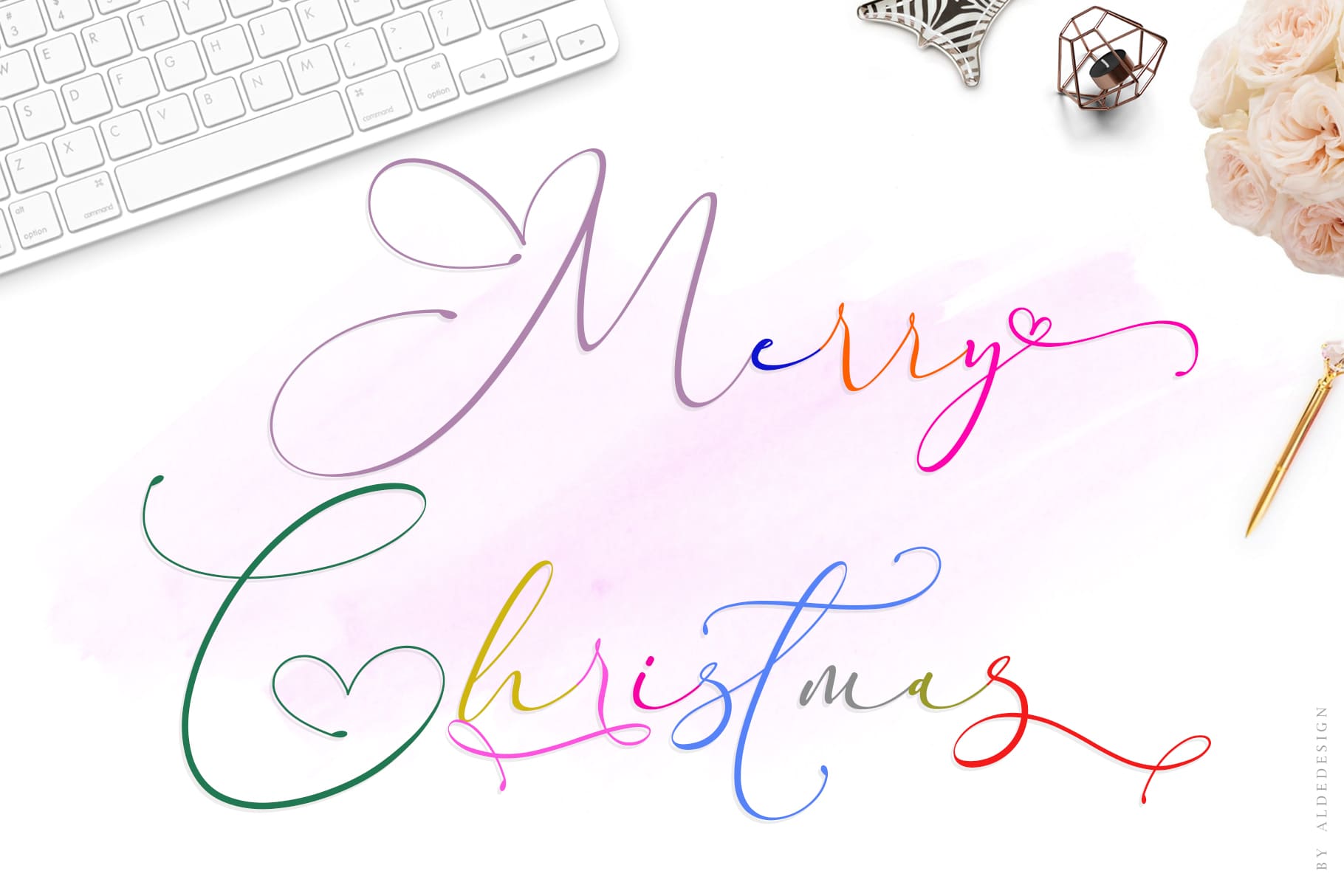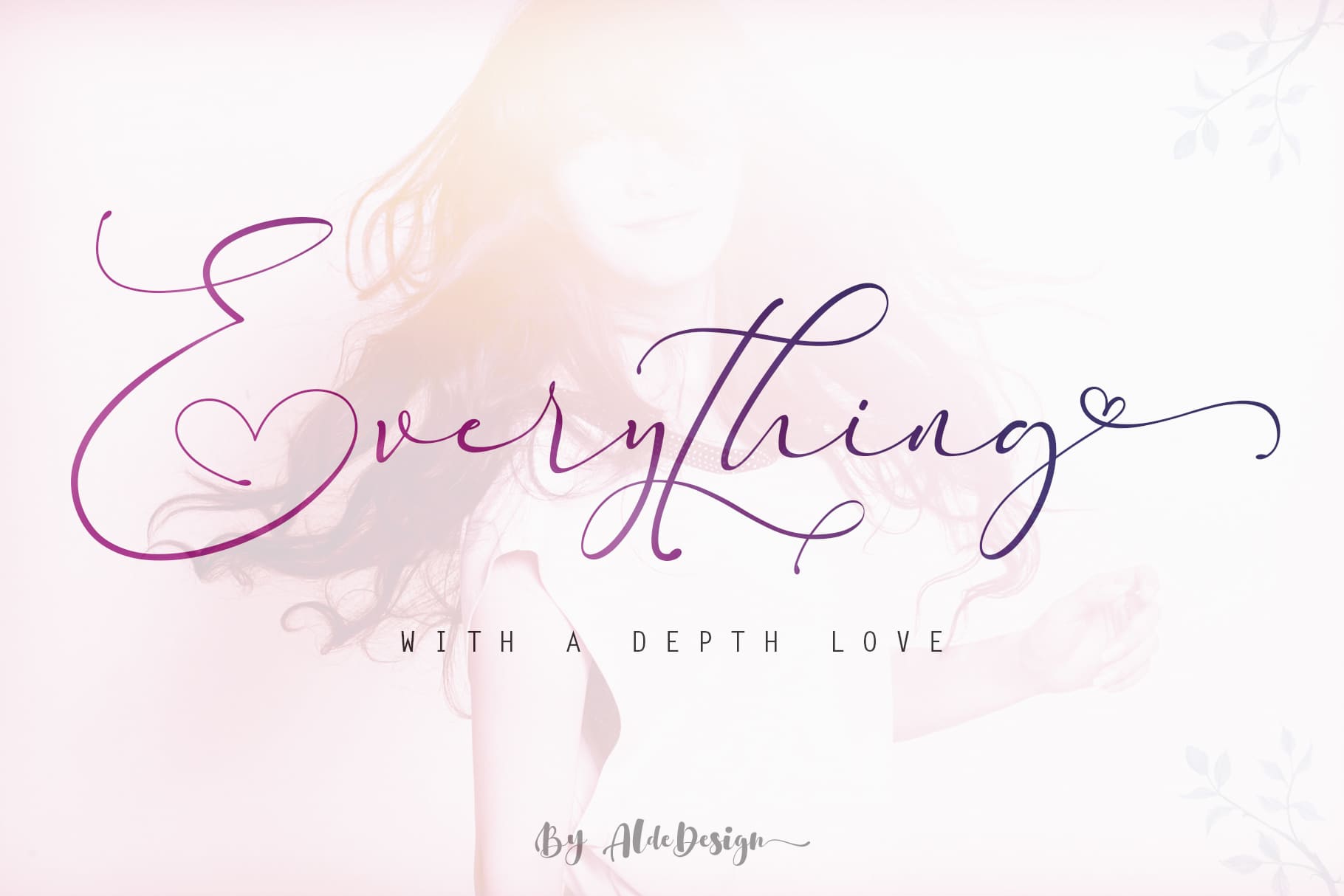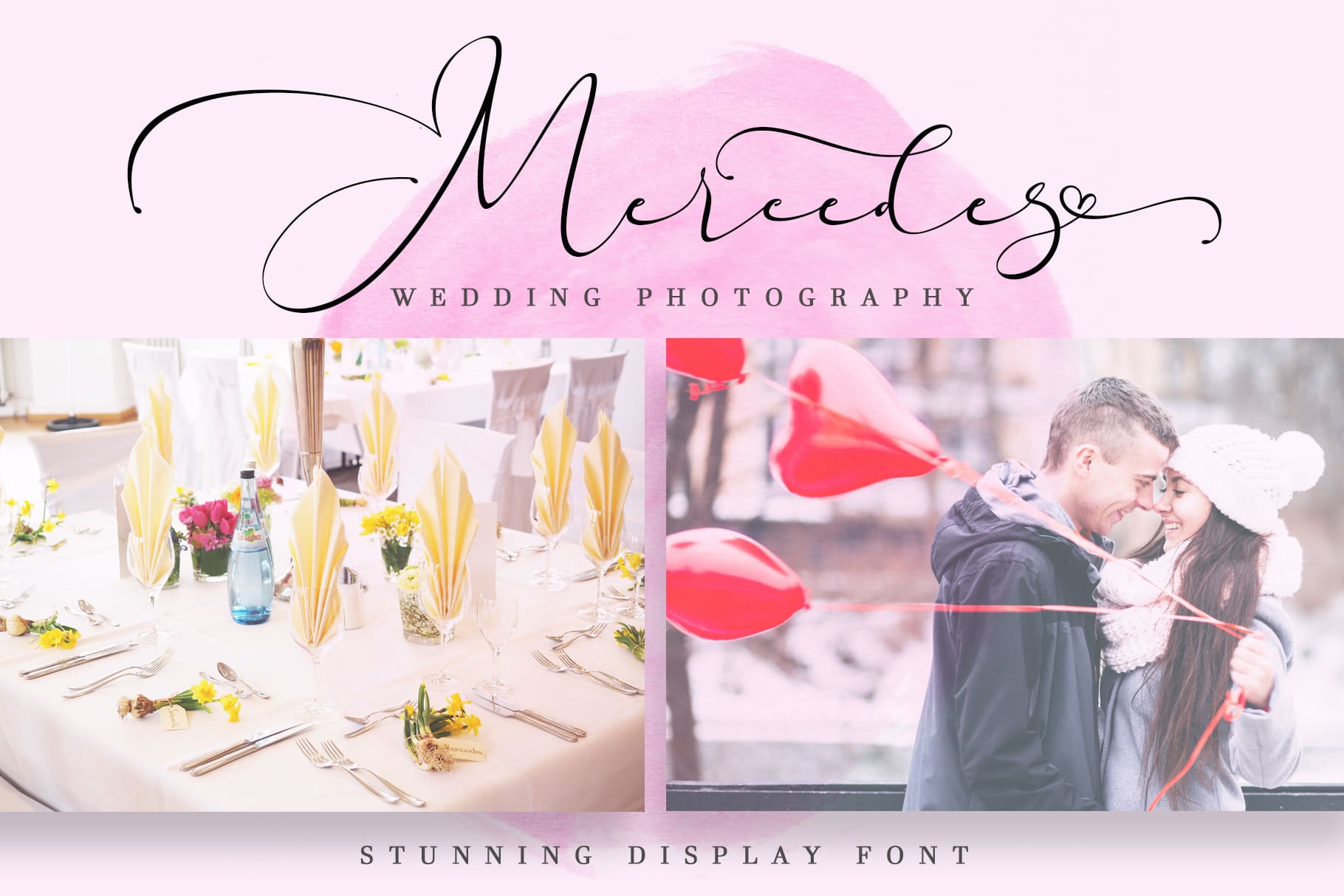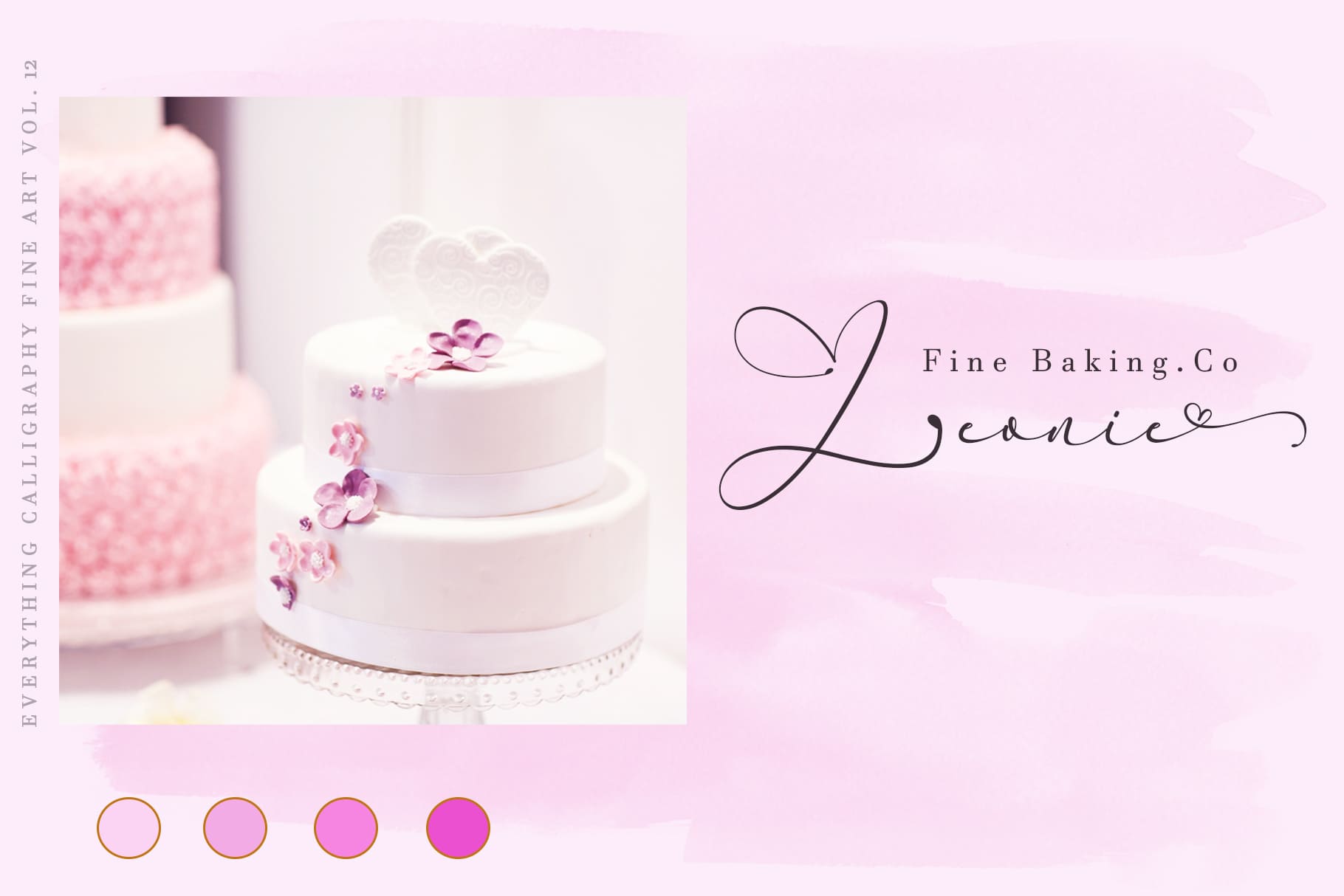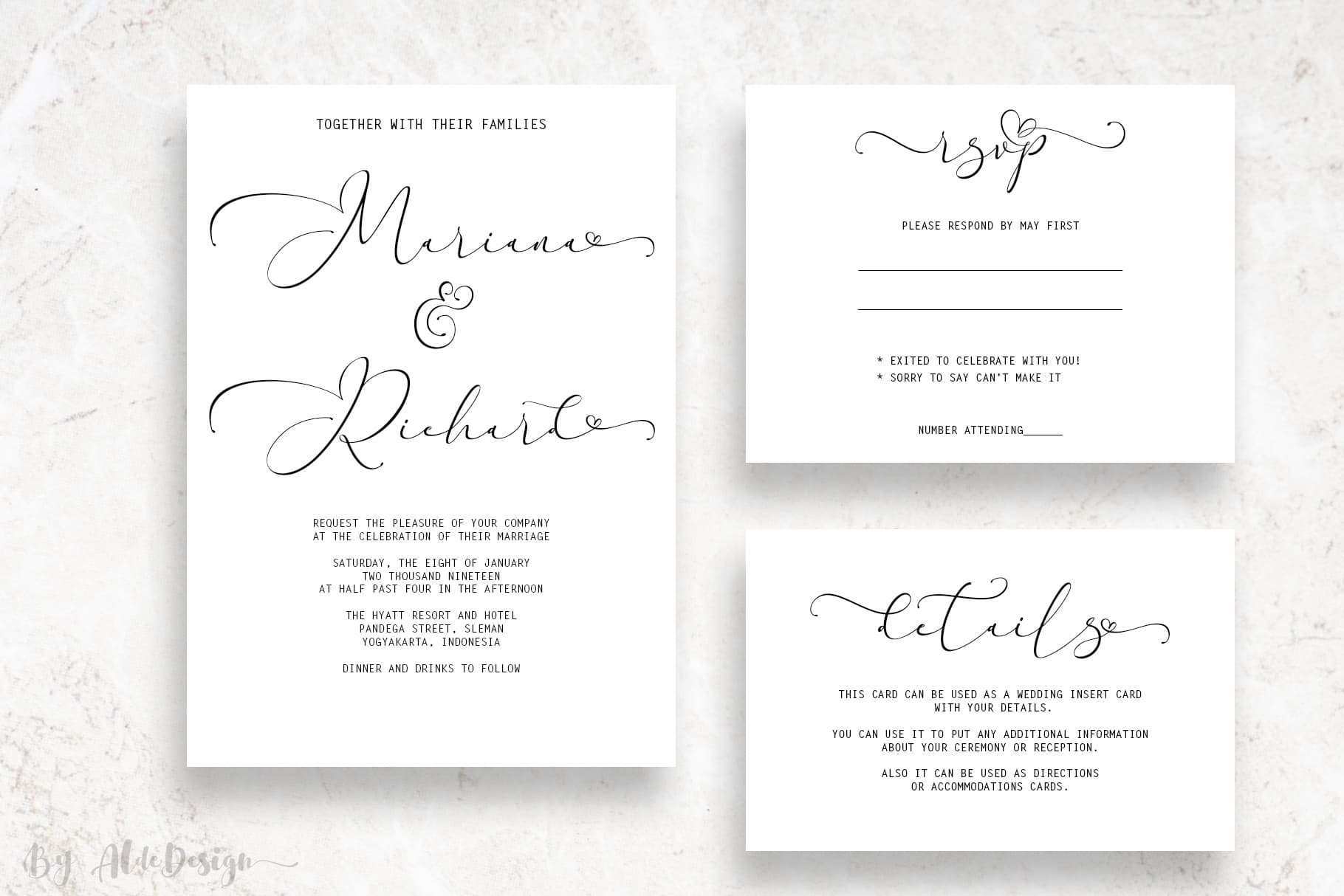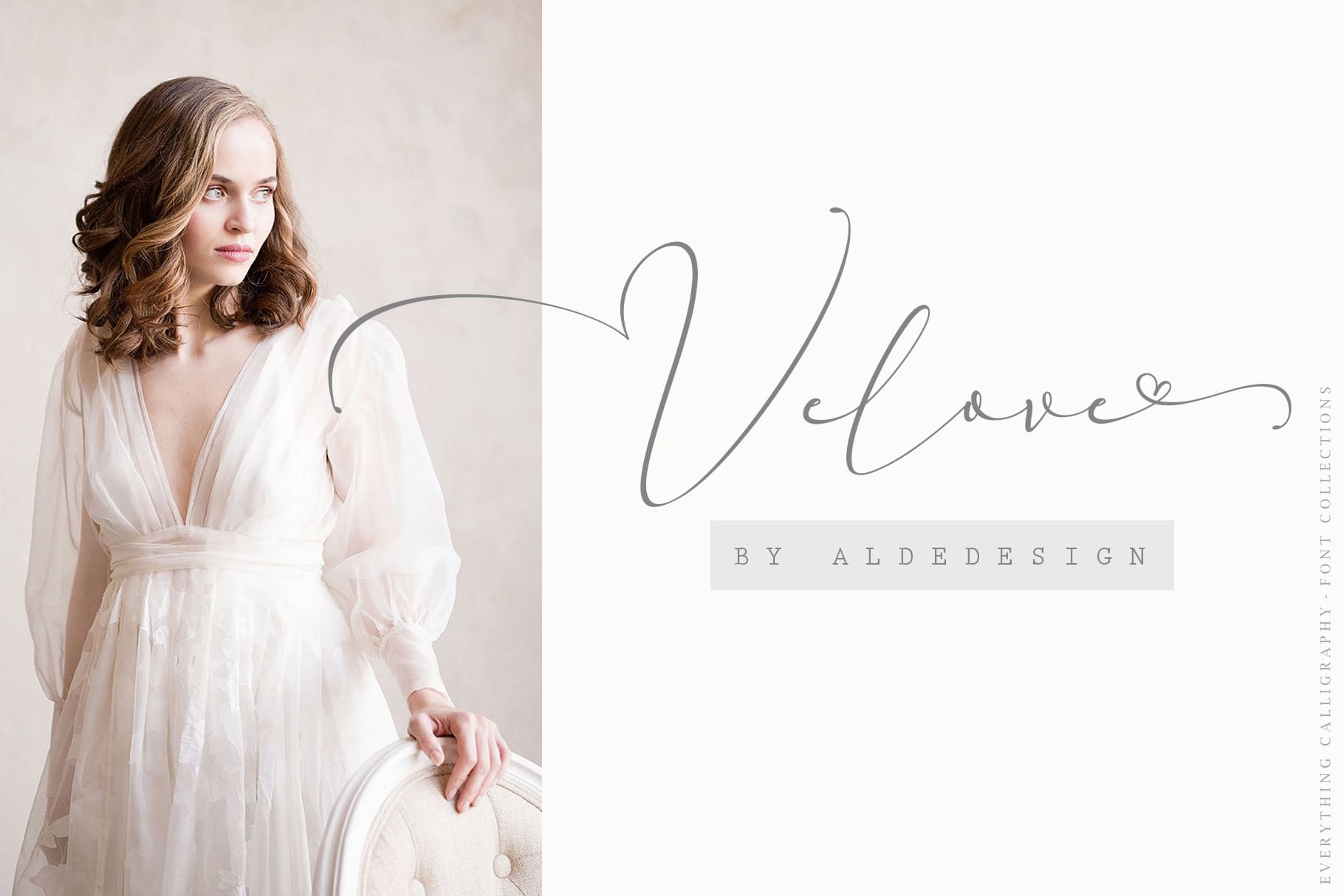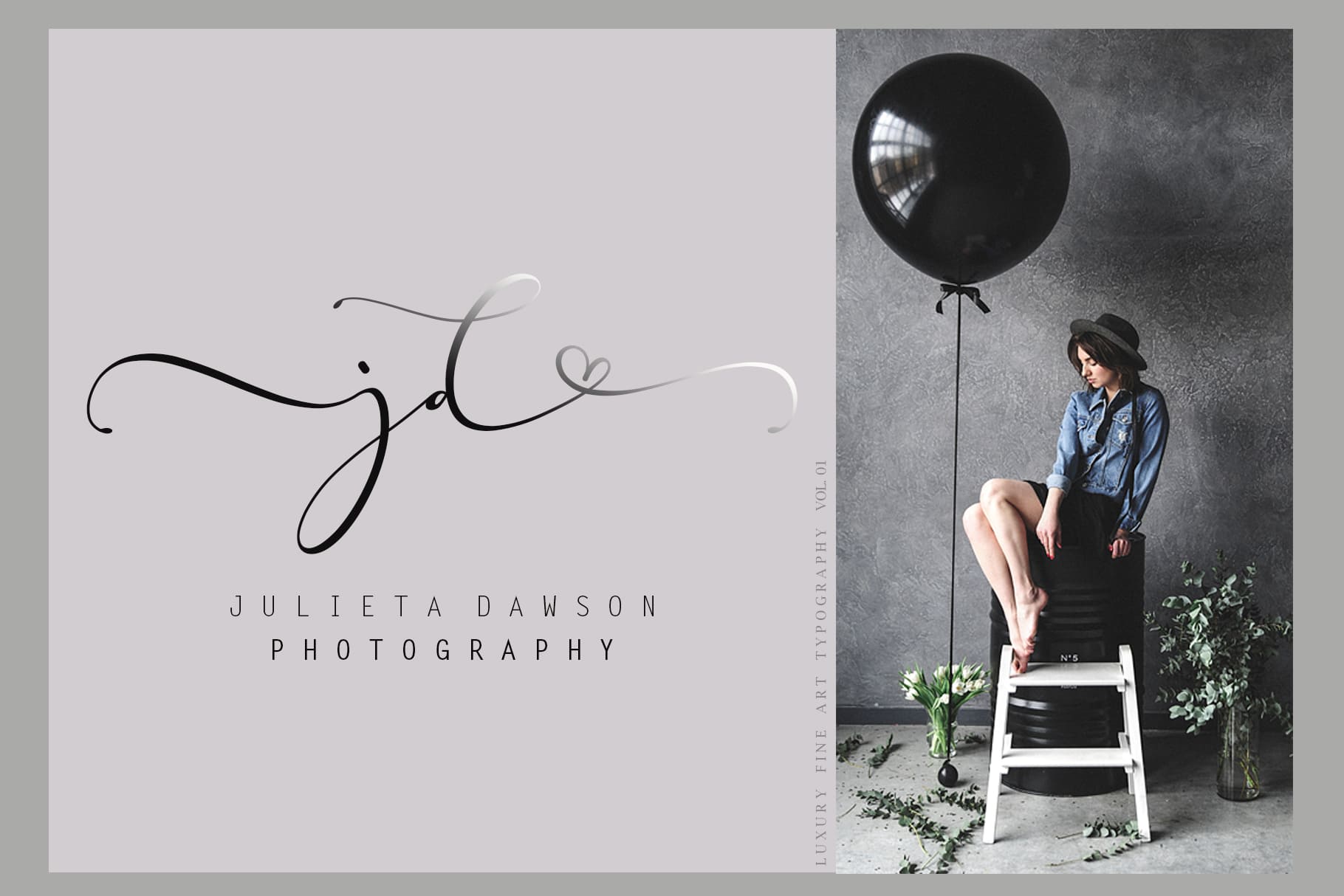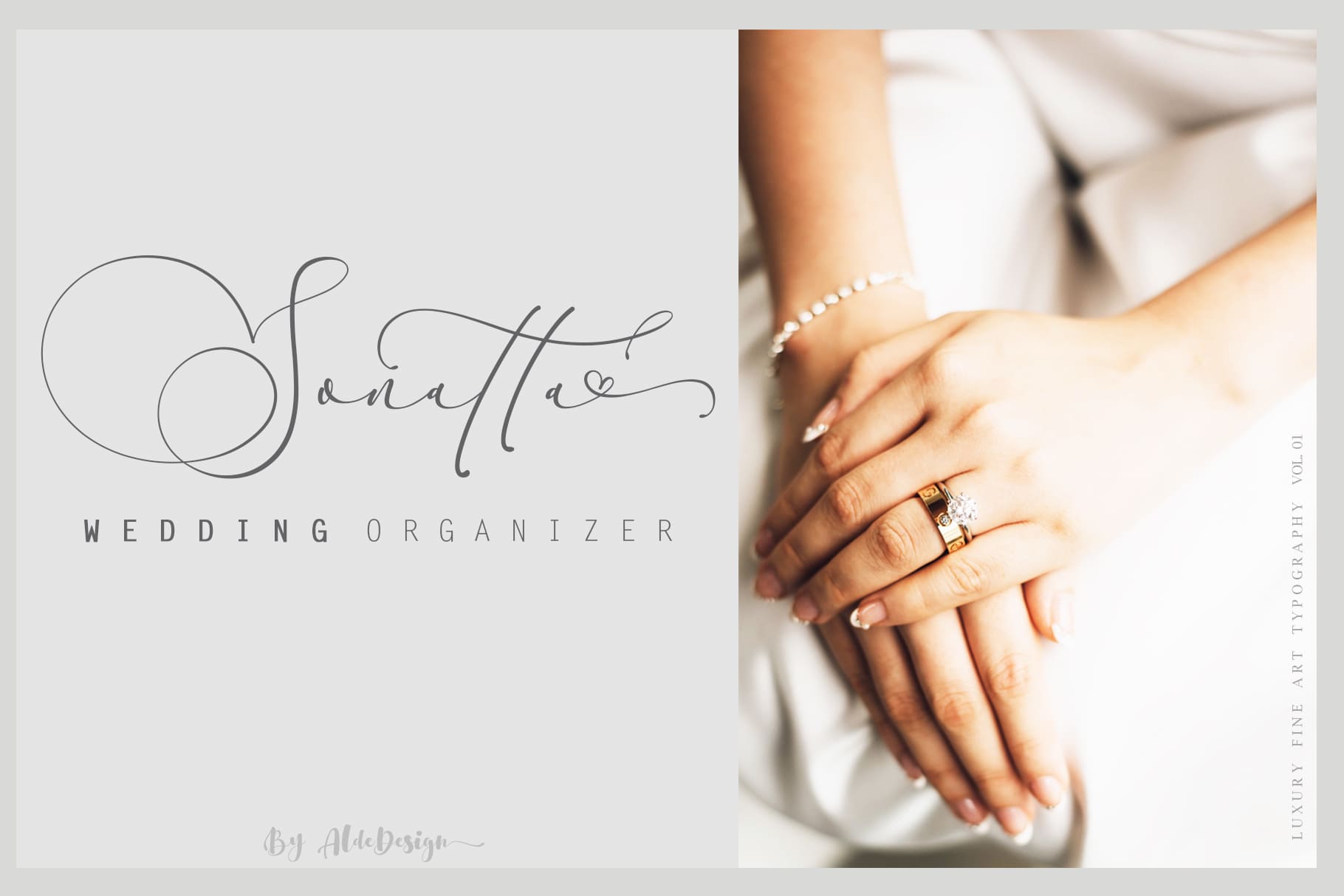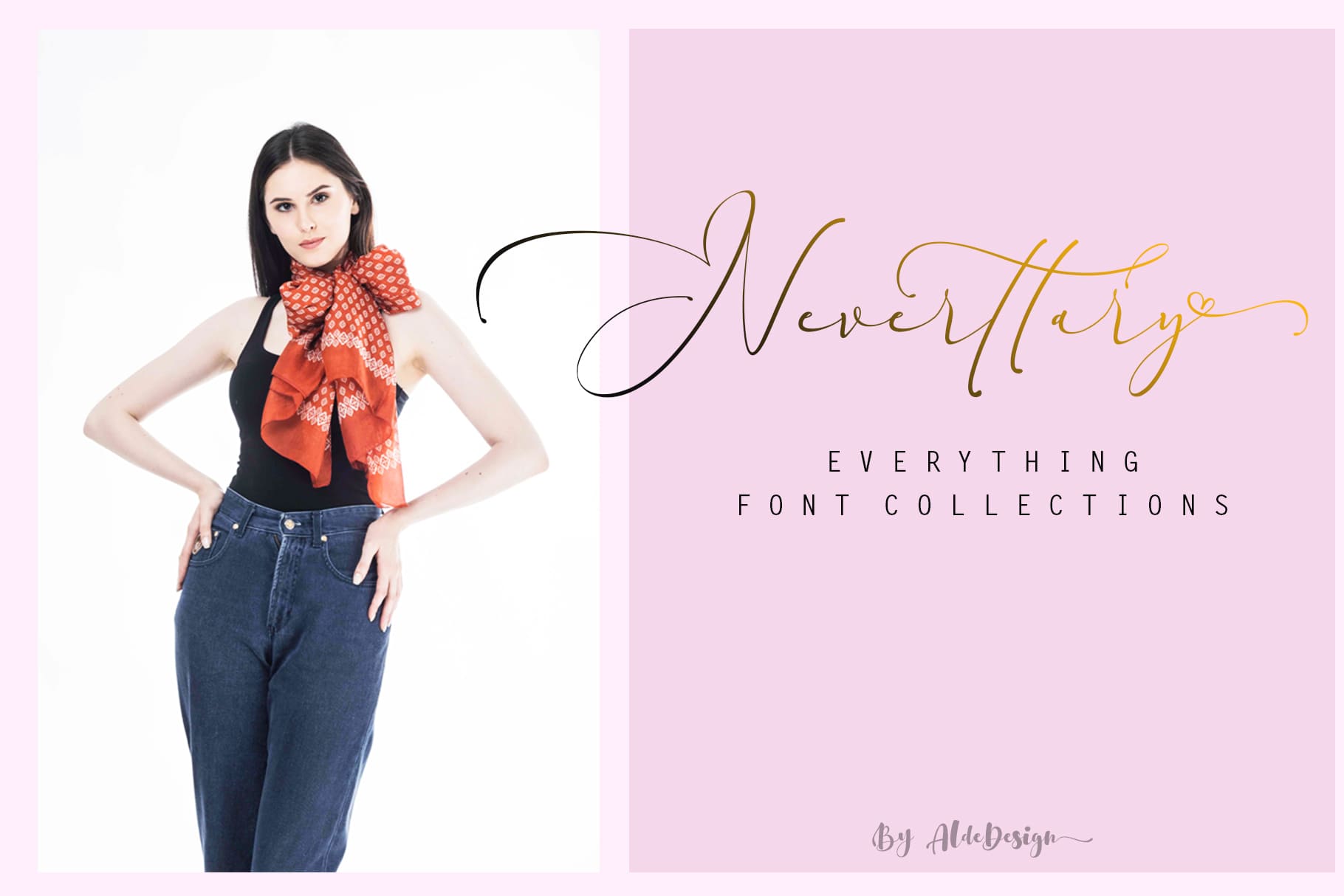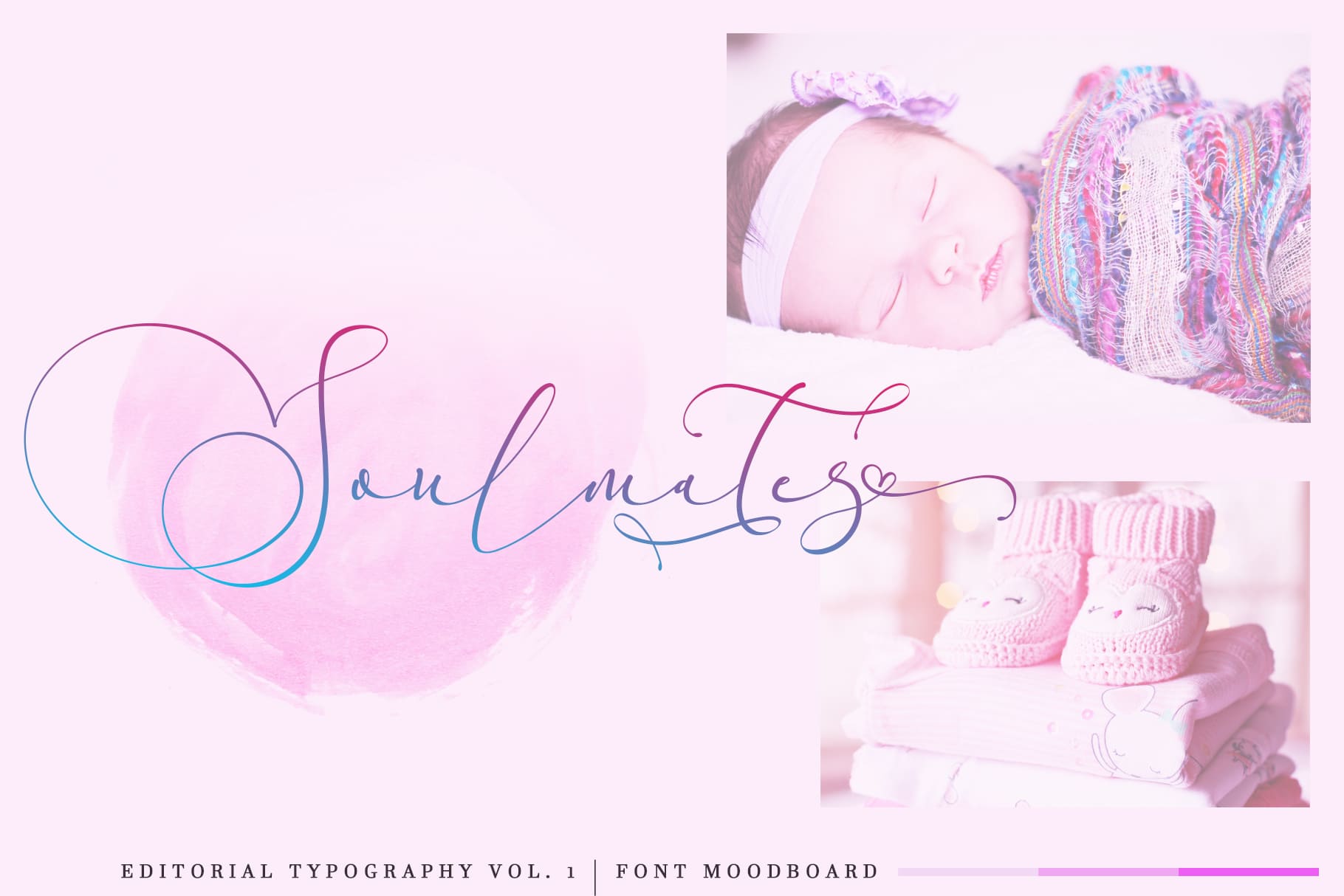
Everything Calligraphy is a stylish calligraphy font. For those of you who need a touch of modern love for your designs, this font delivers and can be used for various design projects such as headings, wedding invitations, signature, logos, branding, t-shirt, letterhead, signage, posters, etc.